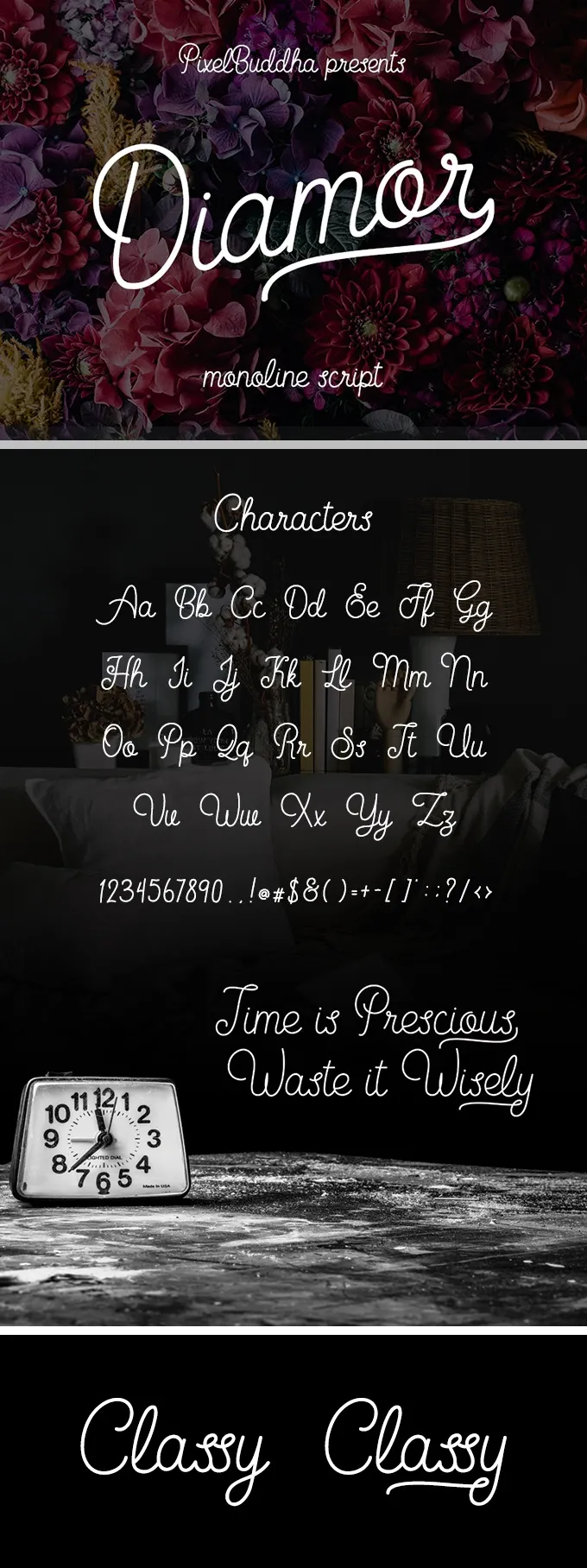
Diamor Script Monoline Font
Hurry up and grab the Diamor Script, a fantastic monoline font designed to create beautiful typography for your remarkable projects! Fine character lines and swashes work together for a design harmony.
It includes rich Open Type features and will please you with its variety. All the characters are so neatly-prepared and carry a sense of a sheer perfectionism in every single piece. Also, the font comes in OTF, TTF, and WebFont formats, which is useful to know. Use the remarkable feeling this font gives for your invitations, product packaging, quotes, and an eternity of other variants!